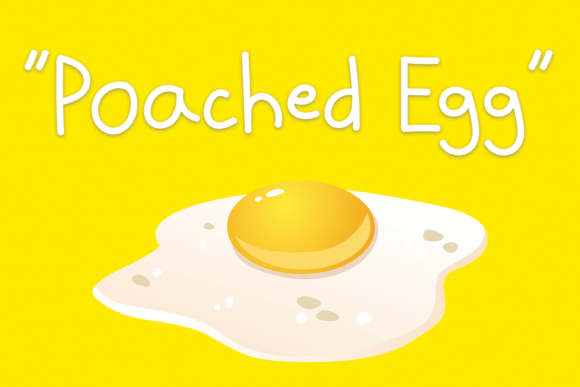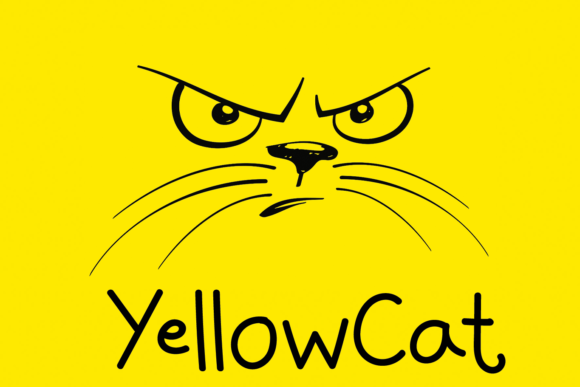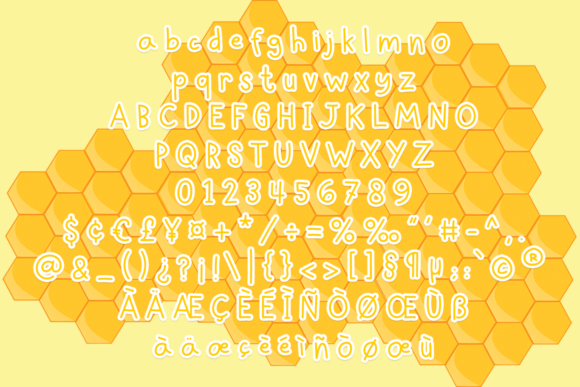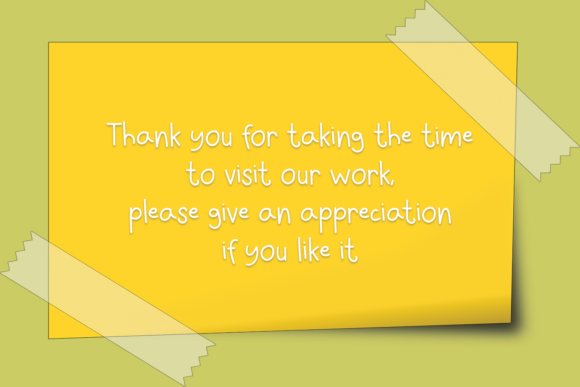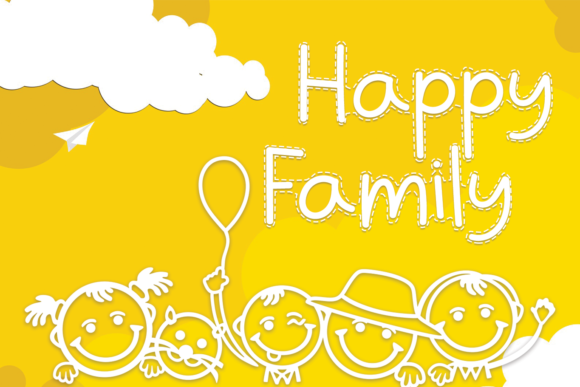
Introducing Happy Family Font: The Perfect Choice for Your Creative Projects
Are you looking for a font that can add a touch of beauty and friendliness to your designs? Look no further than Happy Family Font! This cool looking and friendly handwritten font is perfect for a wide range of creative projects, from cartoon-related designs and children’s games to quotes, titles, brand names, book covers, posters, and more.
What Makes Happy Family Font So Special?
Happy Family Font is a unique and versatile font that can elevate any design project. Its friendly and approachable style makes it perfect for projects that require a personal touch. Whether you’re designing for children or adults, this font is sure to delight. Its clean and elegant lines make it easy to read, while its playful style adds a touch of whimsy to any design.
Uses for Happy Family Font
Happy Family Font is a versatile font that can be used for a wide range of creative projects, including:
- Cartoon-related designs: Add a playful touch to your cartoon characters and storyboards with Happy Family Font.
- Children’s games: Create fun and engaging games for kids with this friendly and approachable font.
- Quotes and titles: Add a touch of elegance and sophistication to your quotes and titles with Happy Family Font.
- Brand names: Create a unique and memorable brand identity with this stylish font.
- Book covers: Add a touch of whimsy and charm to your book covers with Happy Family Font.
- Posters: Create eye-catching posters for any occasion with this versatile font.
Why Choose Happy Family Font?
There are many reasons why Happy Family Font is a great choice for your design projects. Here are just a few:
- Unique style: Happy Family Font has a unique and stylish design that will set your projects apart from the rest.
- Easy to read: The clean and elegant lines of this font make it easy to read, even at small sizes.
- Versatile: Happy Family Font can be used for a wide range of creative projects, from children’s games to book covers.
- Playful touch: This font adds a playful touch to any design, making it perfect for projects that require a personal touch.
Tips for Using Happy Family Font
Here are a few tips for getting the most out of Happy Family Font:
- Use it for headlines and titles: Happy Family Font is perfect for headlines and titles, where its playful style can really shine.
- Pair it with other fonts: Experiment with pairing Happy Family Font with other fonts to create a unique and interesting design.
- Use it for body text: While Happy Family Font is perfect for headlines and titles, it can also be used for body text for a more playful and engaging design.
In conclusion, Happy Family Font is a versatile and stylish font that is perfect for a wide range of creative projects. Its friendly and approachable style makes it perfect for projects that require a personal touch, while its clean and elegant lines make it easy to read. Whether you’re designing for children or adults, Happy Family Font is a great choice. So why not give it a try and see how it can elevate your design projects?